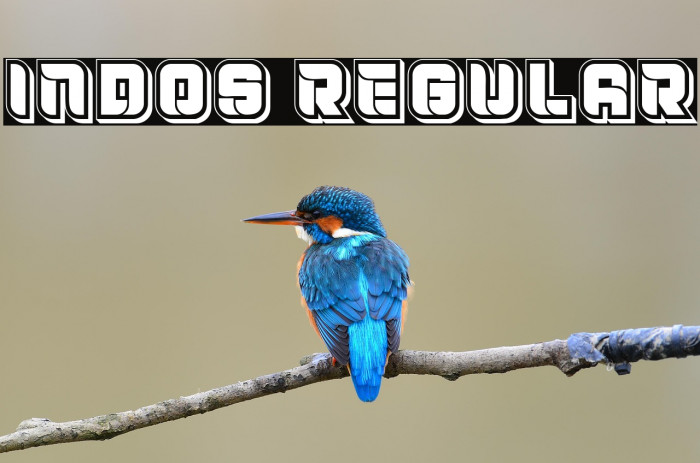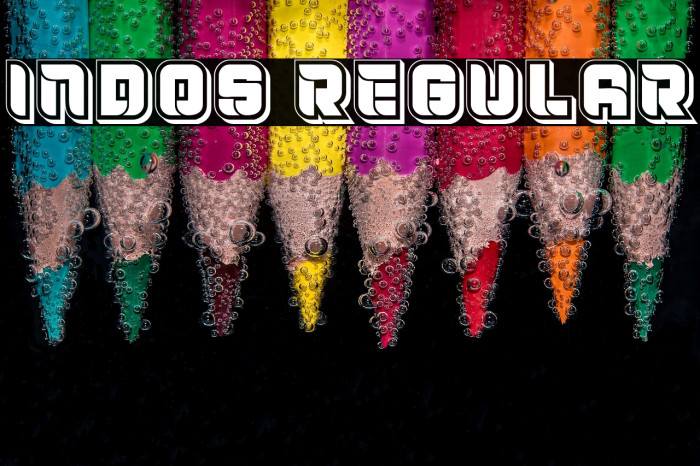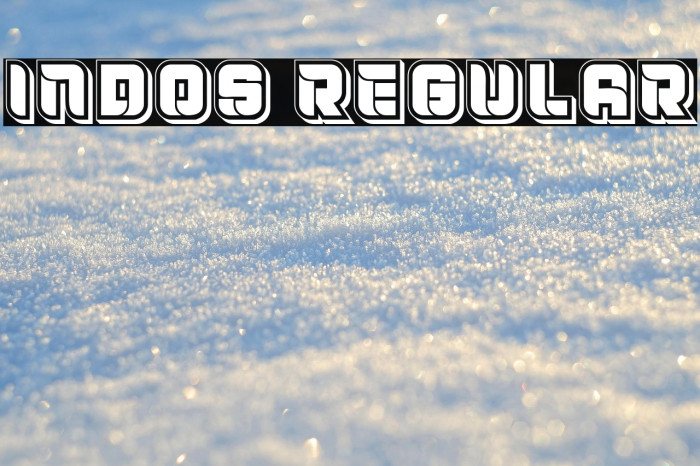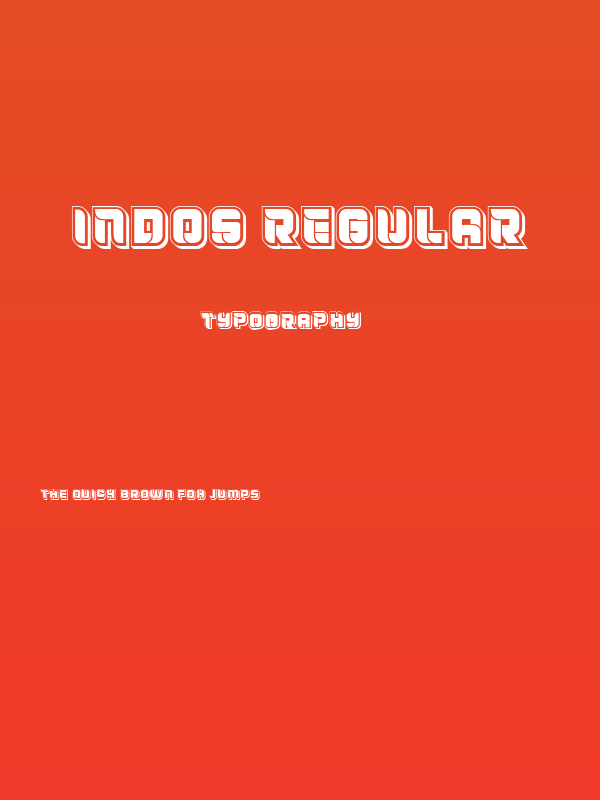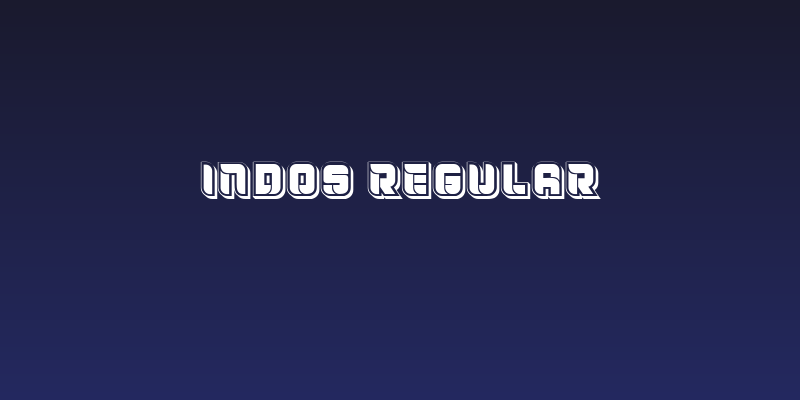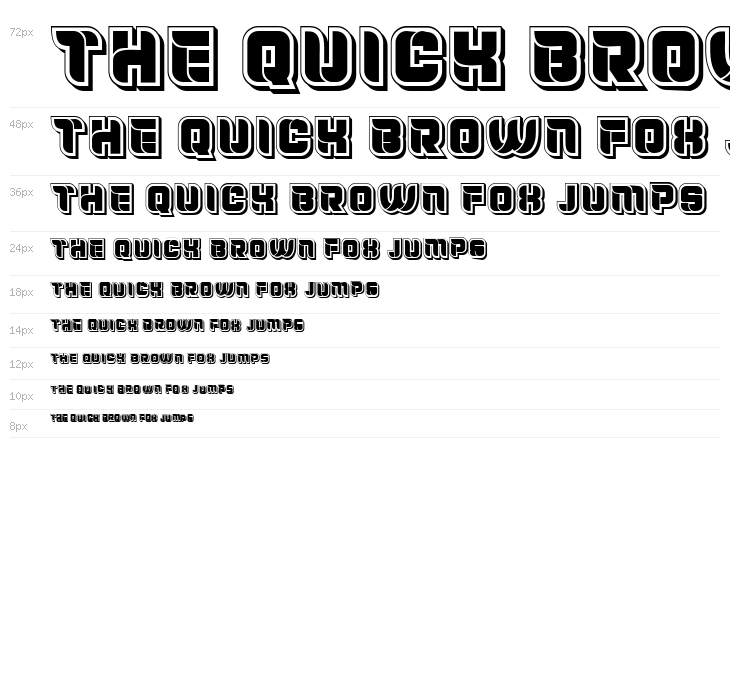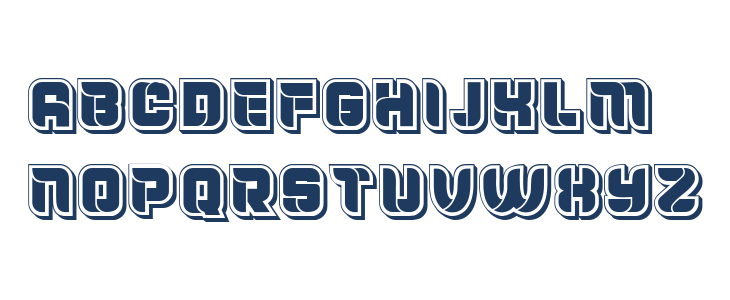
Indos Regular Font
Indos Regular Description
This font features a bold, geometric design with a strong three-dimensional effect created by its thick outlines and shadowing. The characters are uppercase only, with a blocky, futuristic appearance that emphasizes symmetry and uniformity. The style is reminiscent of retro-futuristic aesthetics, making it ideal for projects that require a bold and impactful visual statement. The font's unique structure and shadowing give it a sense of depth and dimension, making it stand out in any design.
| Overall Style | Retro-Futuristic |
| Proposed Projects | Ideal for posters, logos, video game titles, and any design requiring a strong visual impact. |